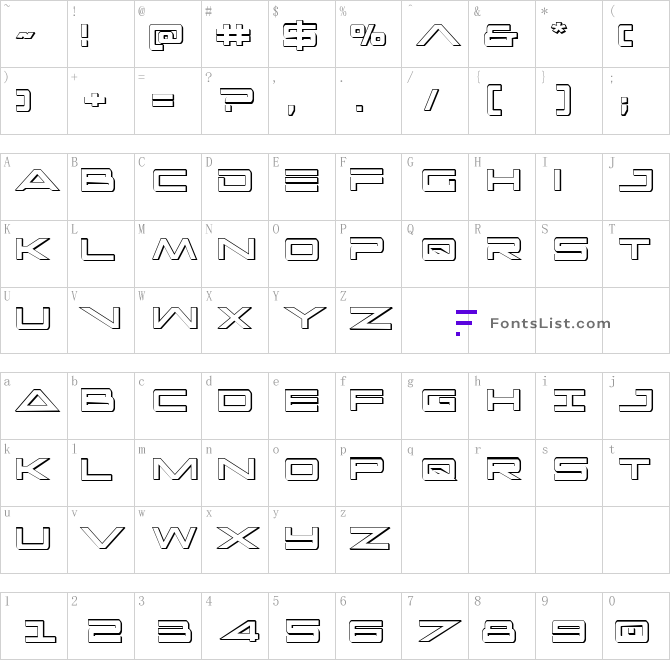
- Font Name:Capella 3D Condensed
Capella-3D-Condensed.ttf is a very beautiful artistic font, Capella-3D-Condensed.ttf is widely used in the design and printing of various books and pictures,Capella-3D-Condensed.ttf has a strong visual impact,Capella-3D-Condensed.ttf is a commonly used font in newspapers, magazines and books, and is used in posters, e-commerce Poster design, store design, logo design, font design and other fields.Capella-3D-Condensed.